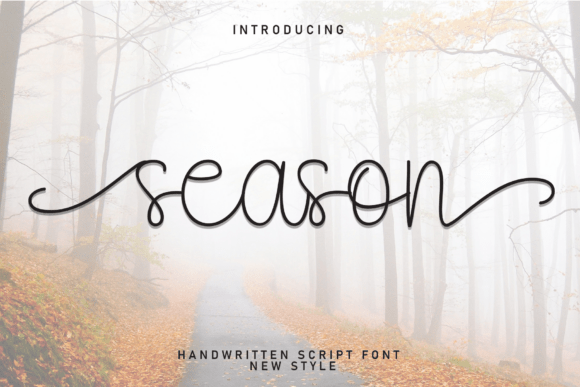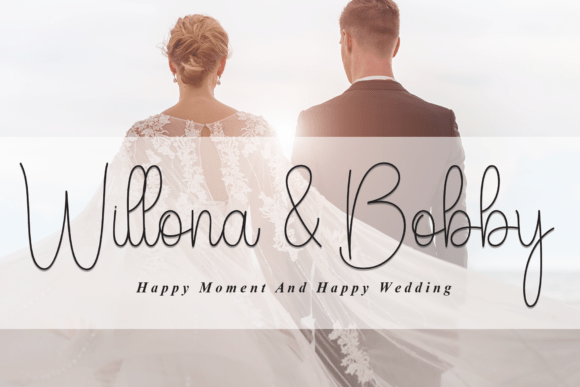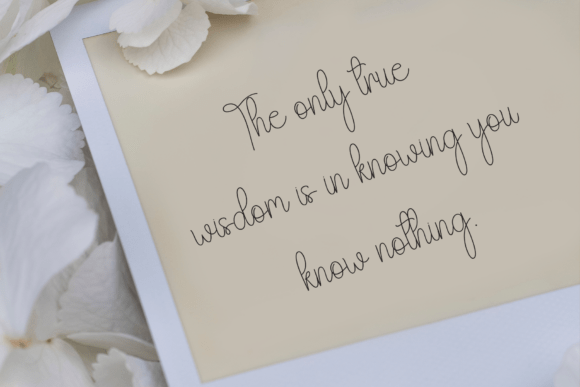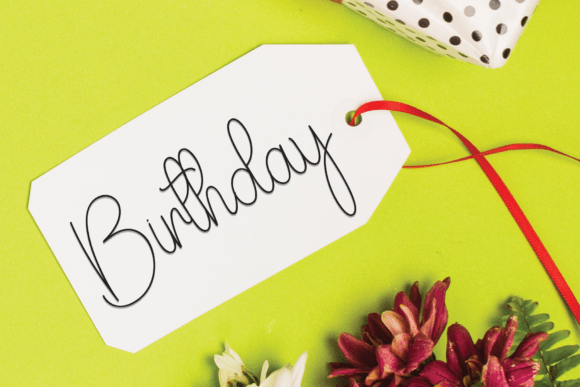
Season Font: Elegant Script for Wedding & Branding Designs
About the Season Font
Explore the possibilities with Season Font, a font that offers both beauty and functionality. Season is a stylish handwritten script font that radiates elegance and fluidity. Its smooth, flowing strokes create a natural and sophisticated feel, perfect for branding, invitations, and creative projects. With a graceful balance of charm and modernity, this typeface adds a personal, artistic touch to any design.
Season Font Usage Examples